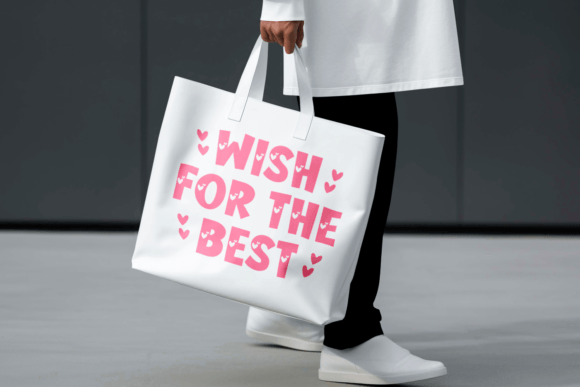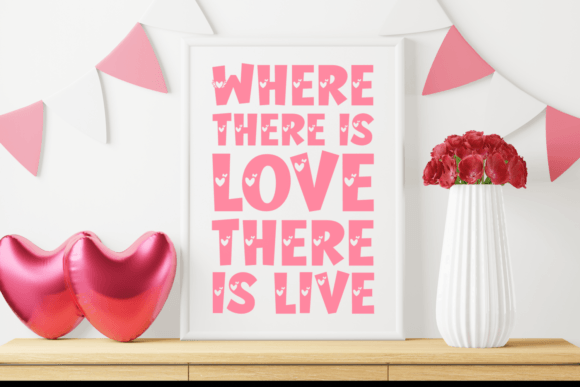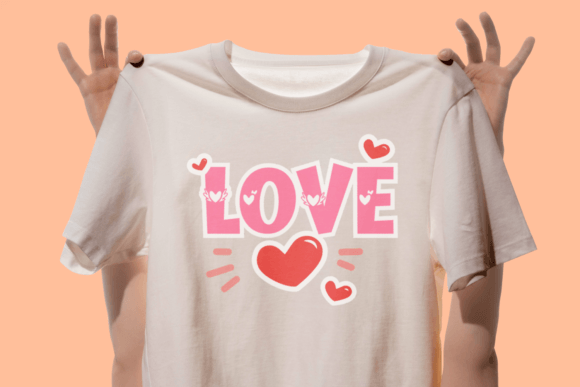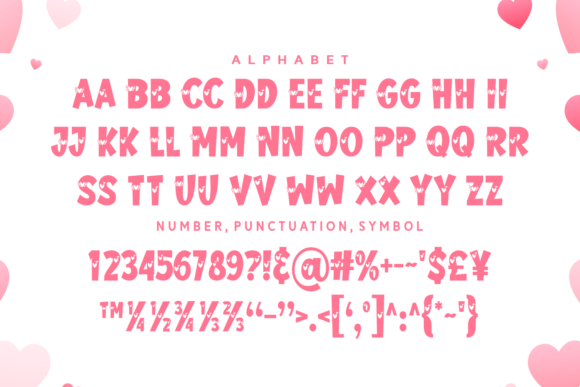
Discover the Charm of Flaying Lovely Font: A Cute and Charming Love Typeface
Are you looking for a font that can add a touch of romance and warmth to your design projects? Look no further than Flaying Lovely, a beautiful and charming love typeface that is sure to capture the hearts of designers and crafters alike. In this article, we’ll take a closer look at what makes Flaying Lovely so special and how you can use it to add a dash of love and affection to your designs.
The Characteristics of Flaying Lovely Font
Flaying Lovely is a truly unique font that is designed to evoke feelings of romance, sweetness, and joy. Each letter is carefully crafted with soft curves, gentle strokes, and playful embellishments that give it a whimsical and lighthearted feel. The font’s design is perfect for expressing love and affection in a way that is both playful and sincere.
One of the standout features of Flaying Lovely is its ability to add a touch of warmth and personality to any text. Whether you’re designing a greeting card, wedding invitation, or love note, this font is sure to make your message feel more special and meaningful. The font’s charming and affectionate style is sure to capture the essence of young love and bring a sense of happiness to your designs.
Uses for Flaying Lovely Font
Flaying Lovely is a versatile font that can be used in a wide range of design projects. Here are just a few ideas to get you started:
- Greeting Cards: Add a touch of romance and charm to your greeting cards with Flaying Lovely. Whether you’re designing a card for a special occasion or just to show someone you care, this font is sure to make your message feel more personal and heartfelt.
- Wedding Invitations: Make your wedding invitations truly special with Flaying Lovely. The font’s elegant and sophisticated style is perfect for formal wedding invitations, while its playful and whimsical feel makes it ideal for more casual, rustic weddings.
- Love Notes: Write a love letter or note with Flaying Lovely and make it a keepsake that will be treasured for years to come. The font’s charming and affectionate style is sure to make your message feel more romantic and sincere.
- DIY Crafts: If you’re a crafter, you’ll love using Flaying Lovely to add a personal touch to your DIY projects. Whether you’re making a scrapbook, journal, or other craft project, this font is sure to add a touch of warmth and personality to your work.
Why Designers and Crafters Love Flaying Lovely Font
So, why do designers and crafters love Flaying Lovely font? Here are just a few reasons:
- Unique and Eye-Catching: Flaying Lovely is a truly unique font that is sure to stand out in any design project. Its playful and whimsical style makes it perfect for designers and crafters who want to add a touch of personality to their work.
- Easy to Read: Despite its playful and decorative style, Flaying Lovely is easy to read and understand. This makes it perfect for use in a wide range of design projects, from greeting cards to wedding invitations.
- Versatile: Flaying Lovely is a versatile font that can be used in a wide range of design projects. Whether you’re designing a formal wedding invitation or a casual greeting card, this font is sure to add a touch of romance and charm.
In conclusion, Flaying Lovely font is a beautiful and charming love typeface that is sure to capture the hearts of designers and crafters alike. Its soft curves, gentle strokes, and playful embellishments make it perfect for expressing love and affection in a way that is both playful and sincere. Whether you’re designing a greeting card, wedding invitation, love note, or DIY craft project, Flaying Lovely is sure to add a touch of romance and charm to your work. So why not give it a try and see the difference it can make in your designs?